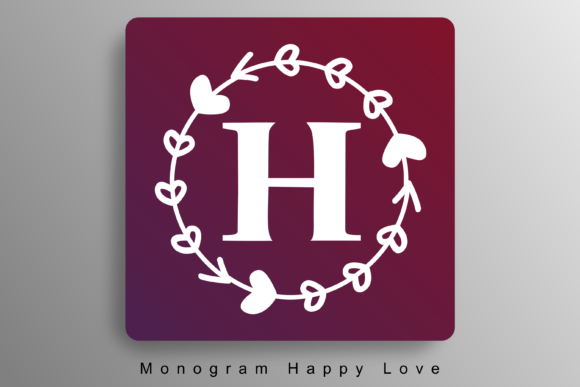
Welcome to the world of Monogram Happy Love Font, where artistry meets elegance to create captivating designs. This decorative font, brought to you by the creative minds of Rusd Studio, is a masterpiece that will transform your words into works of art.
Imagine your wedding invitations, adorned with the intricate details of Monogram Happy Love Font, evoking a sense of timeless romance. Each letter dances across the page, entwined with delicate flourishes and whimsical accents, leaving a trail of enchantment. Your guests will be captivated by the sheer beauty of your words, setting the tone for an unforgettable celebration.
With Monogram Happy Love Font, love letters take on a whole new meaning. The flowing curves and graceful lines capture the essence of your emotions, turning every word into a tender caress. Your beloved will be swept off their feet by the sheer elegance of your expressions, creating memories that will last a lifetime.
This versatile font is not limited to the realm of romance. Unleash your creativity and let Monogram Happy Love Font add a touch of sophistication to your design projects. From invitations and greeting cards to posters and logos, this font will elevate your designs to new heights.